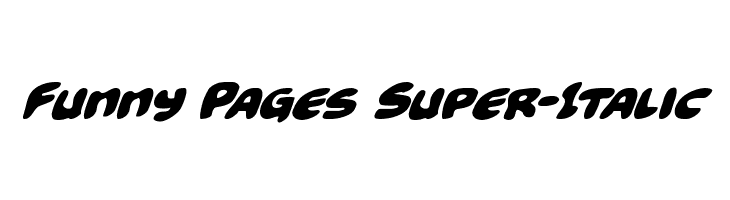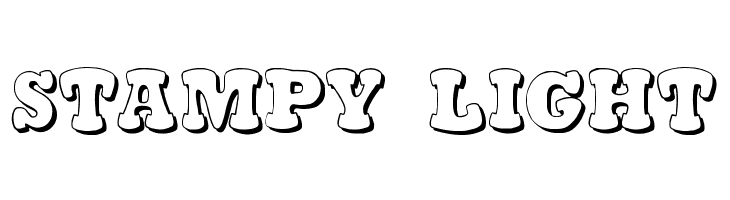
A whimsical, cartoonish font with bold, rounded characters featuring playful elements.
A playful, outlined font with a cartoonish, hand-drawn style.
A playful, outlined font with a bubble-like, cartoonish style.
A bold, playful 3D font with a hand-drawn, cartoonish style.
A bold, playful font with a cartoonish, energetic style.
A playful, bold, 3D italic font with a cartoonish style and rounded characters.
A bold, playful, and italicized font with a cartoonish style.
A bold, italic, cartoonish font with rounded, playful characters.
A playful, bold 3D font with rounded edges and a cartoonish style.
A bold, 3D cartoonish font with thick outlines and playful character shapes.